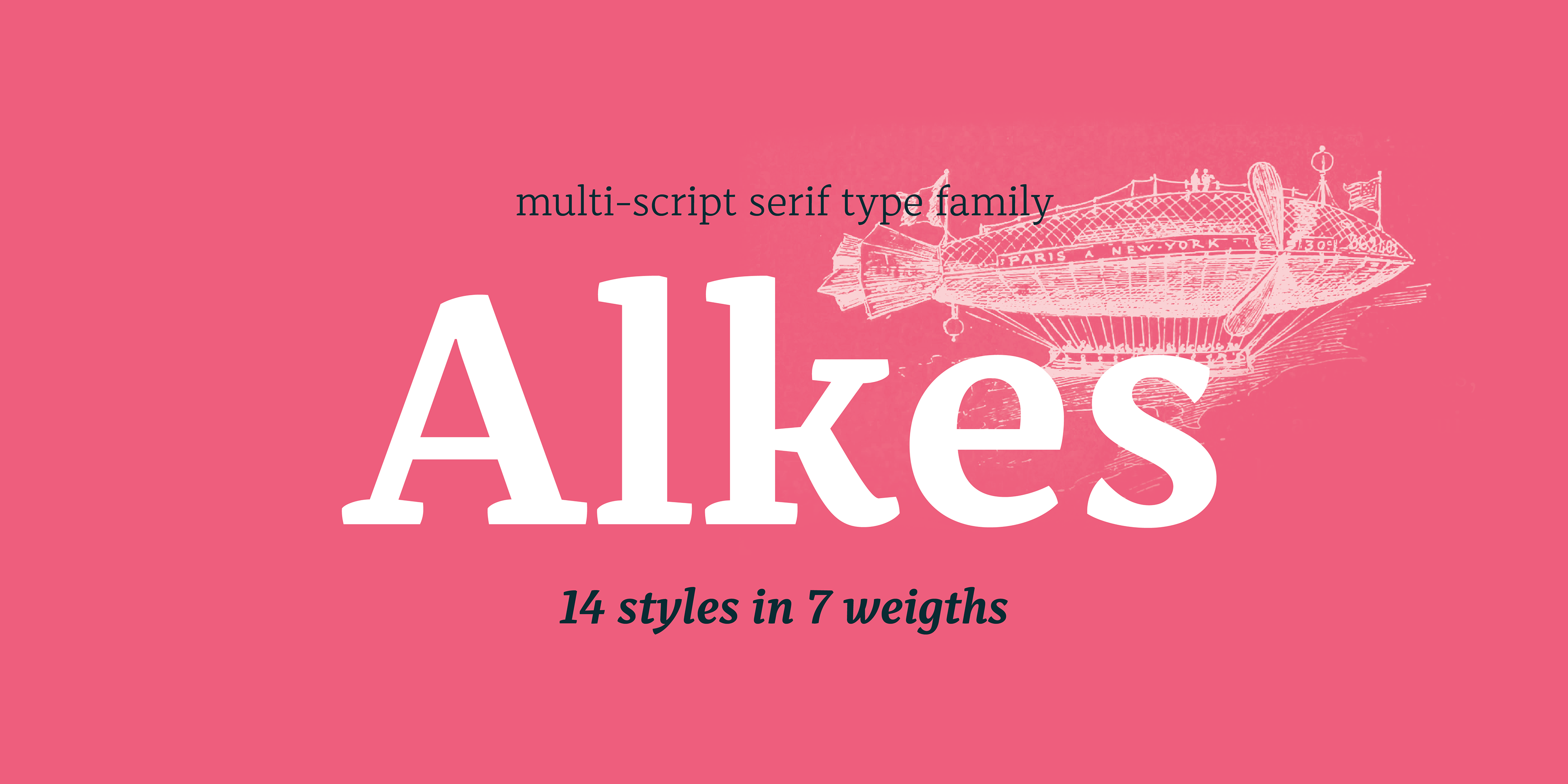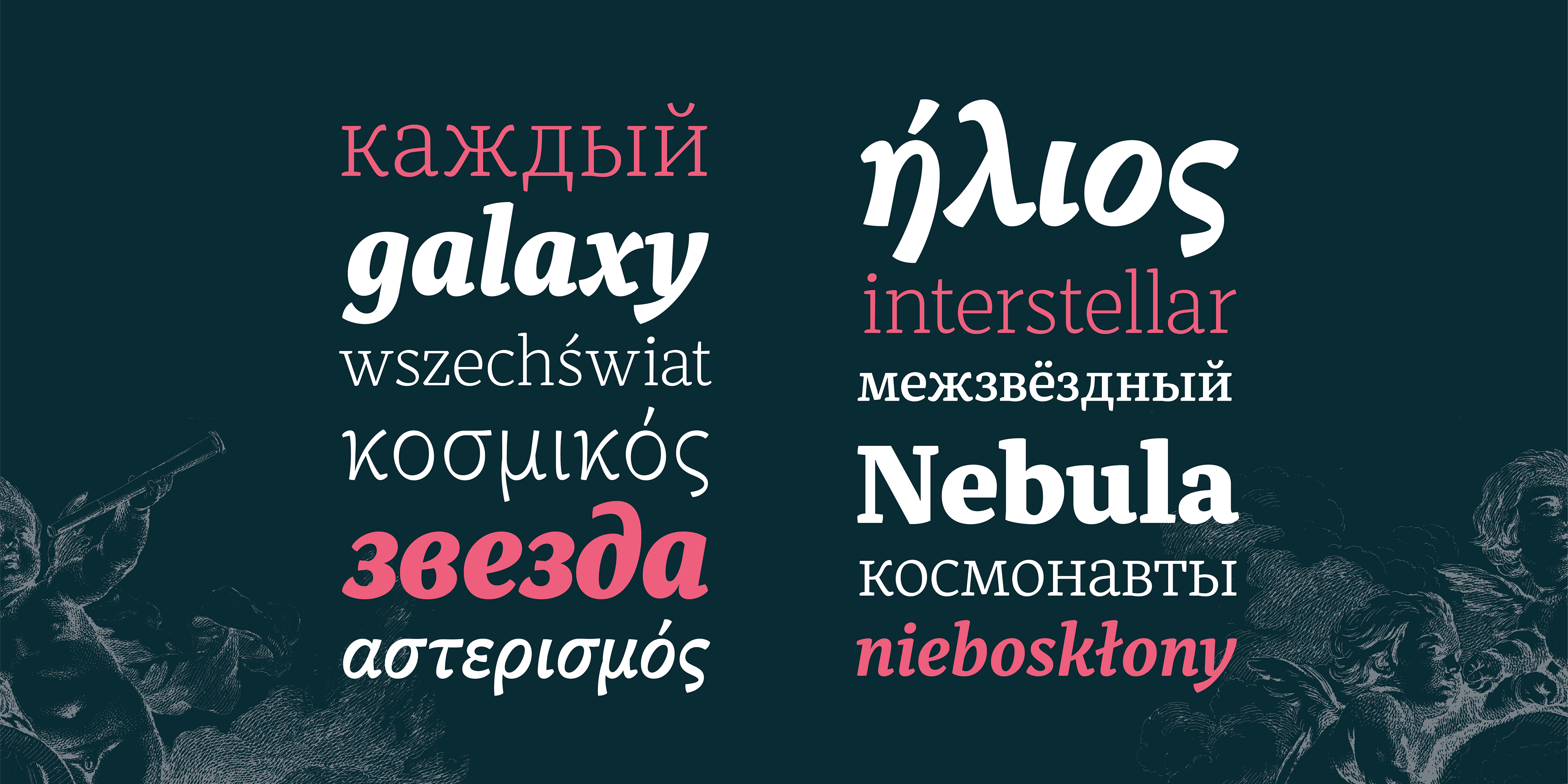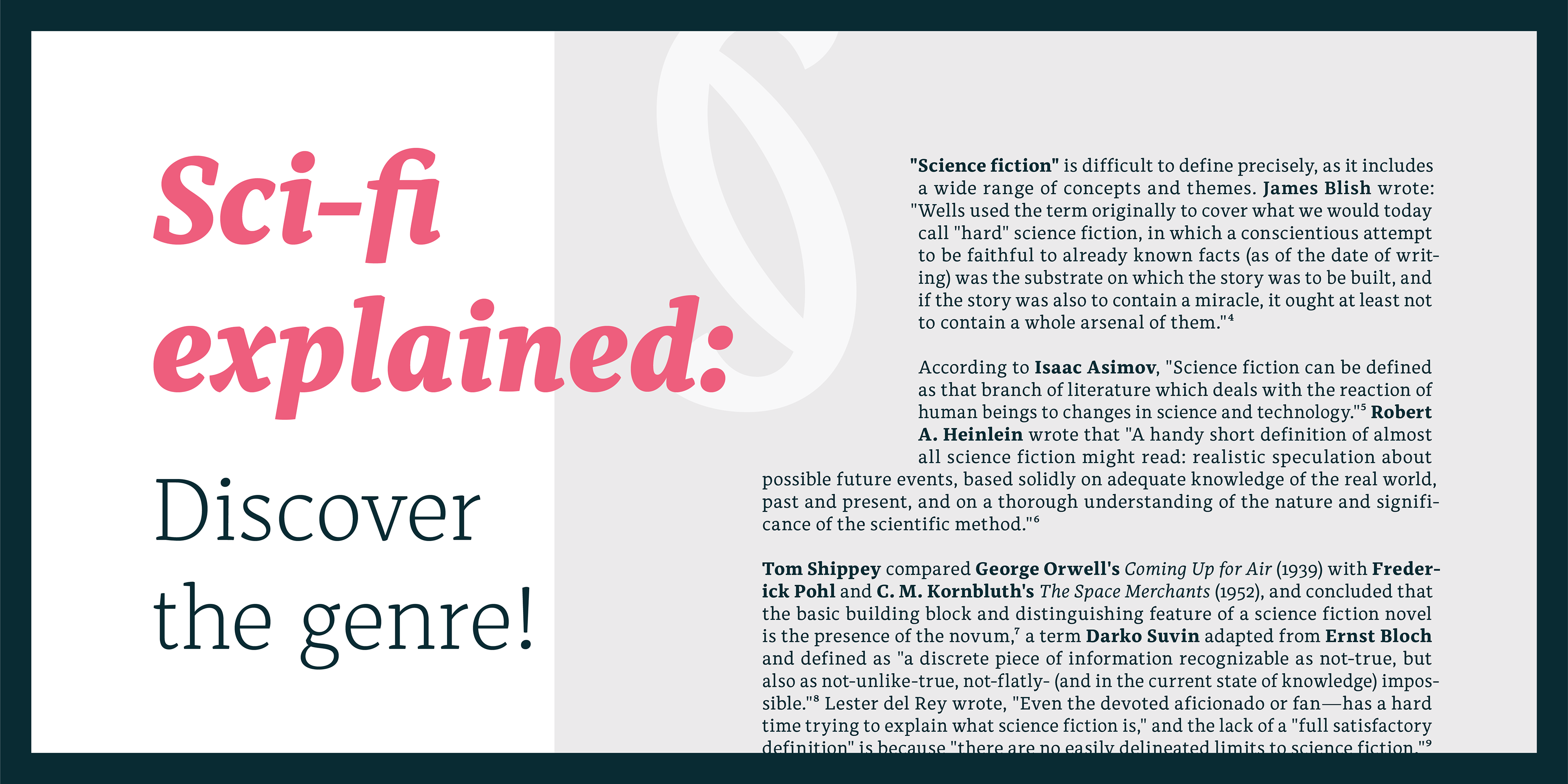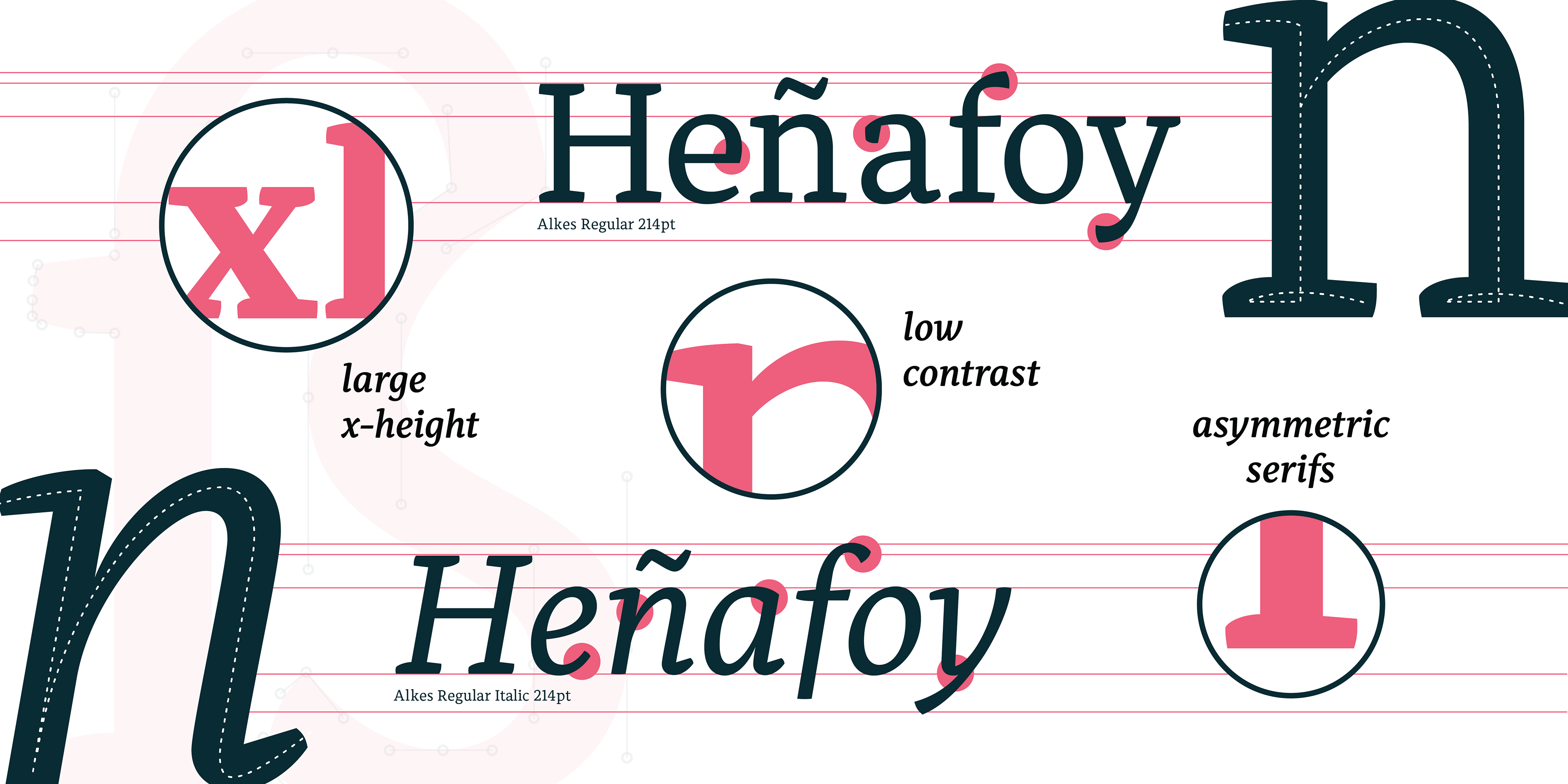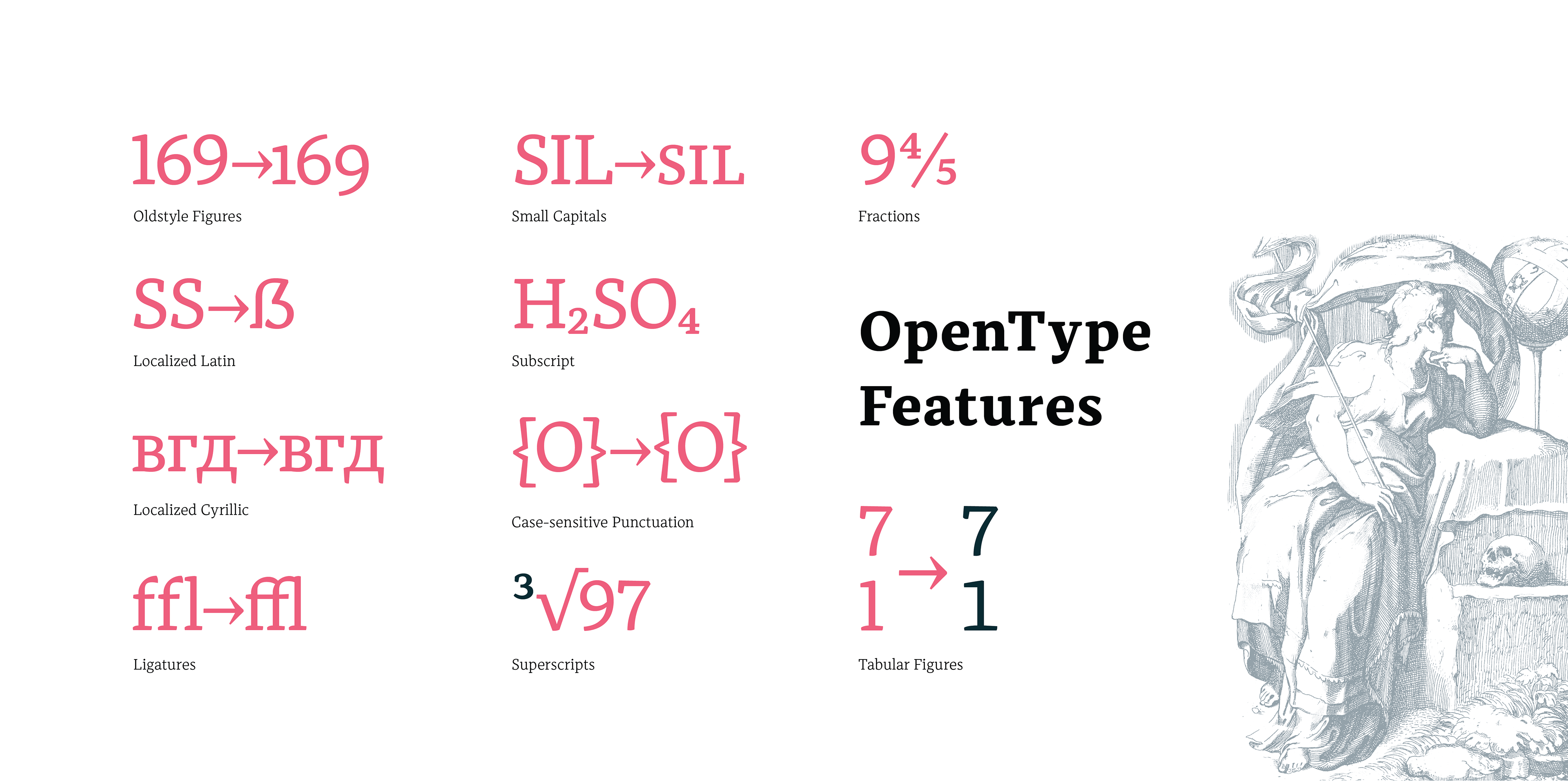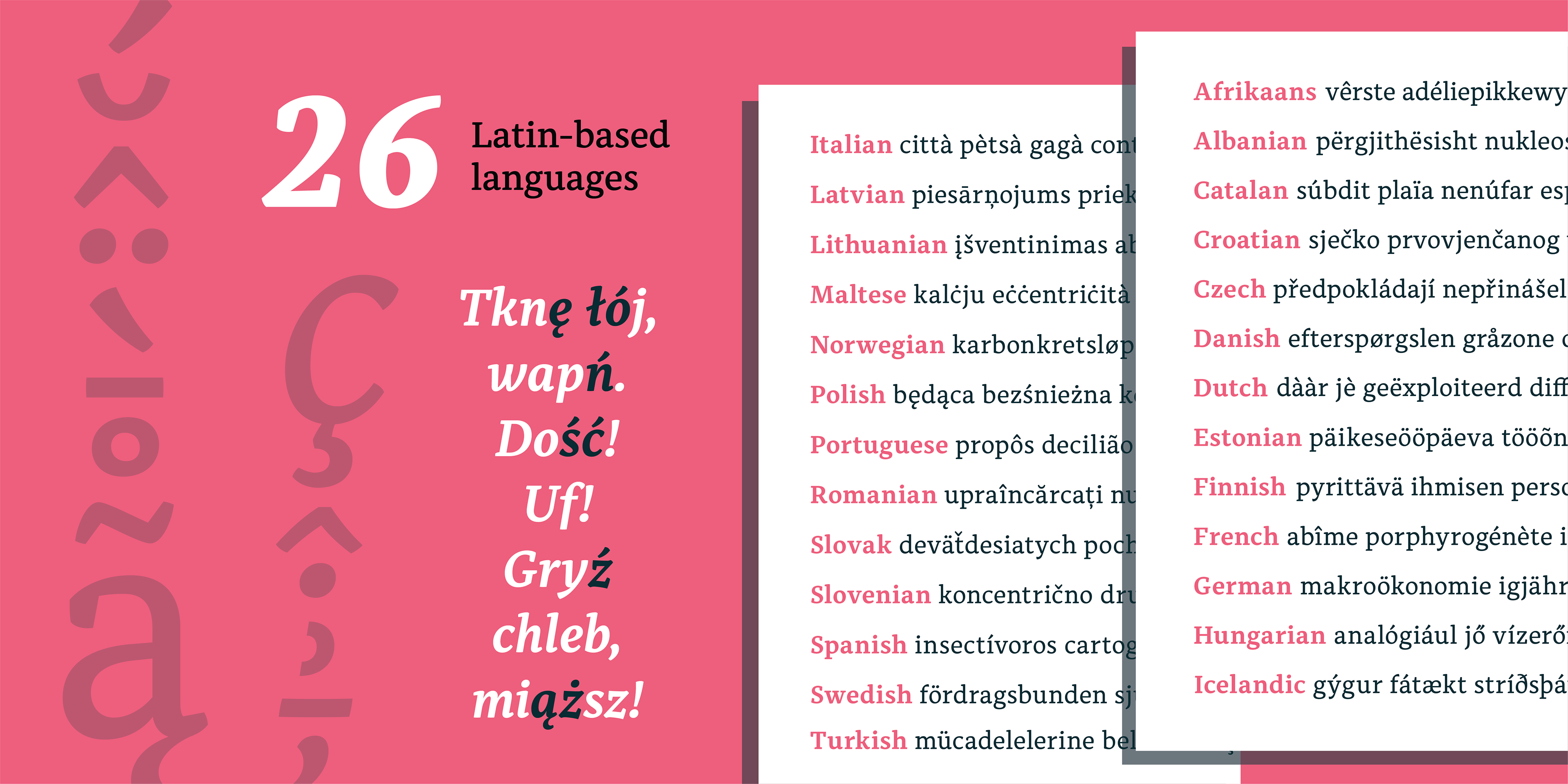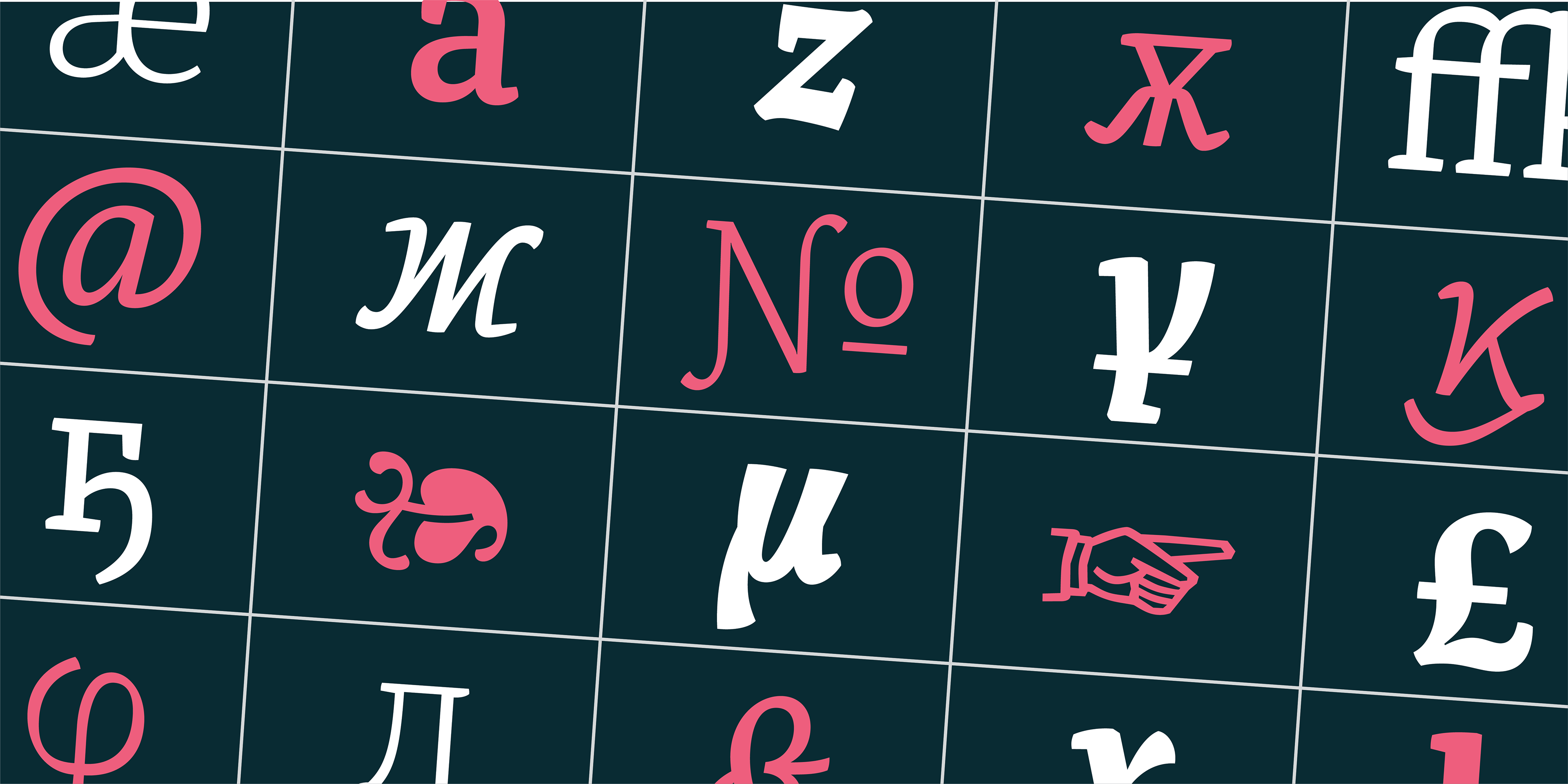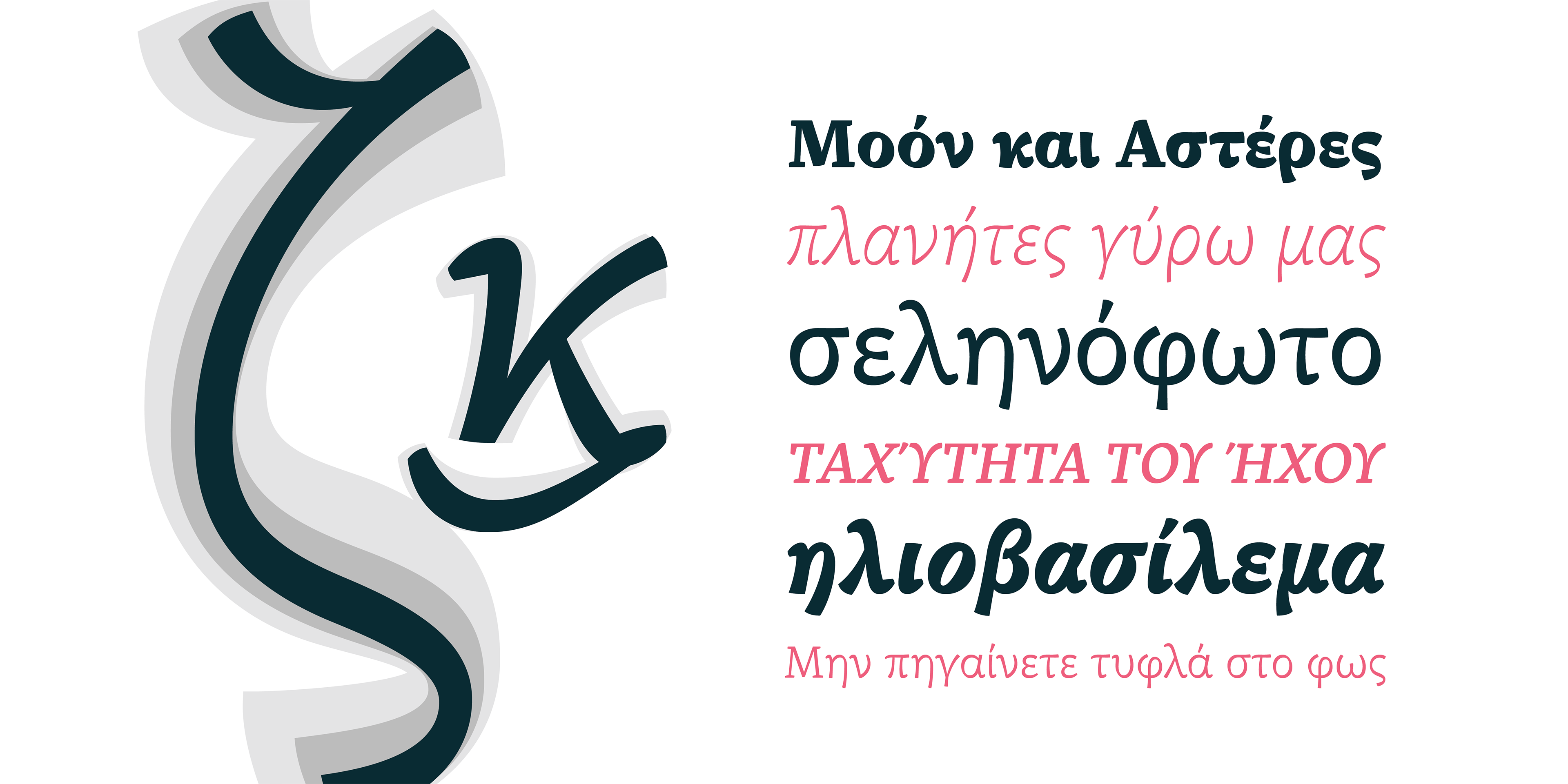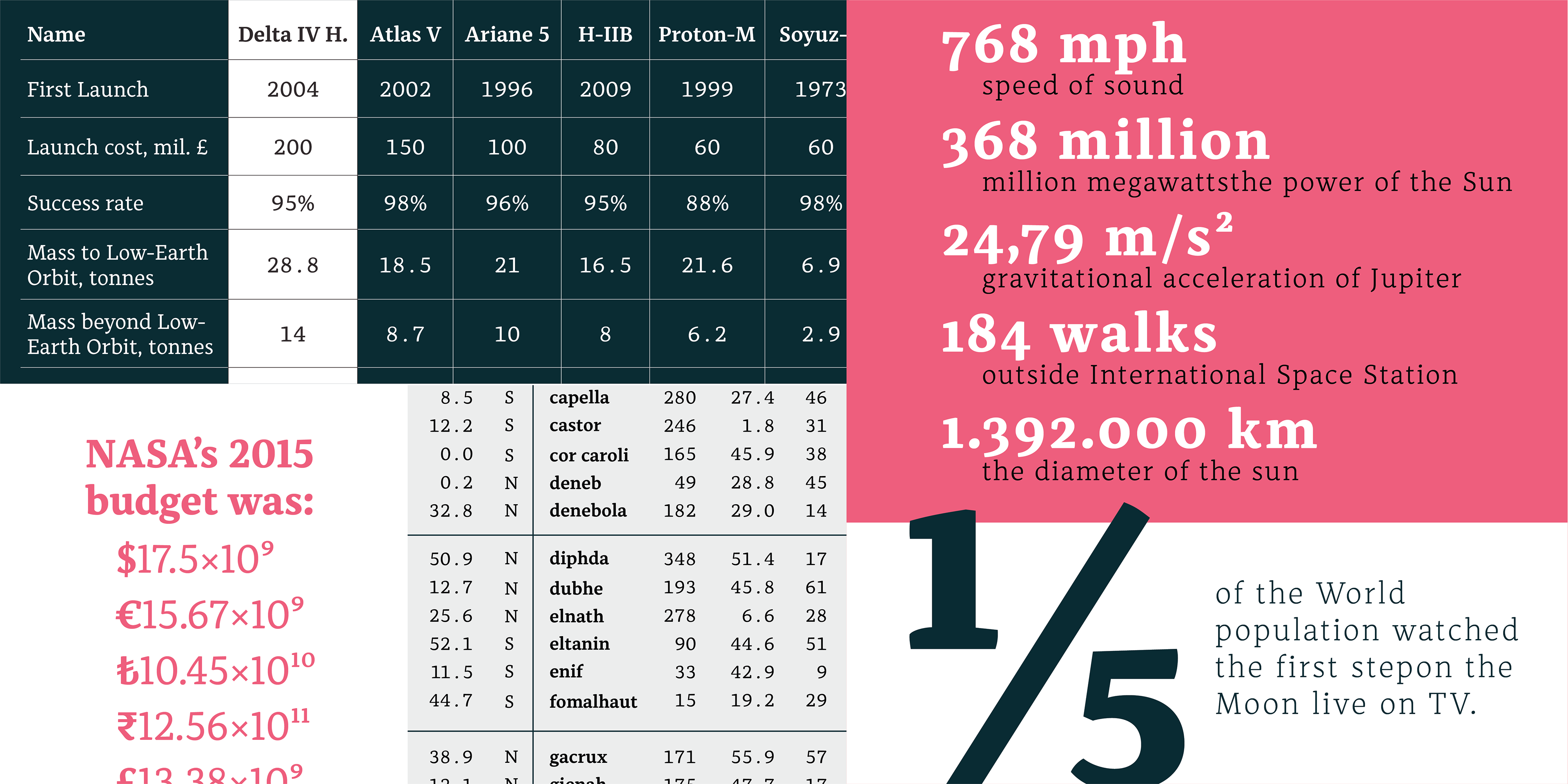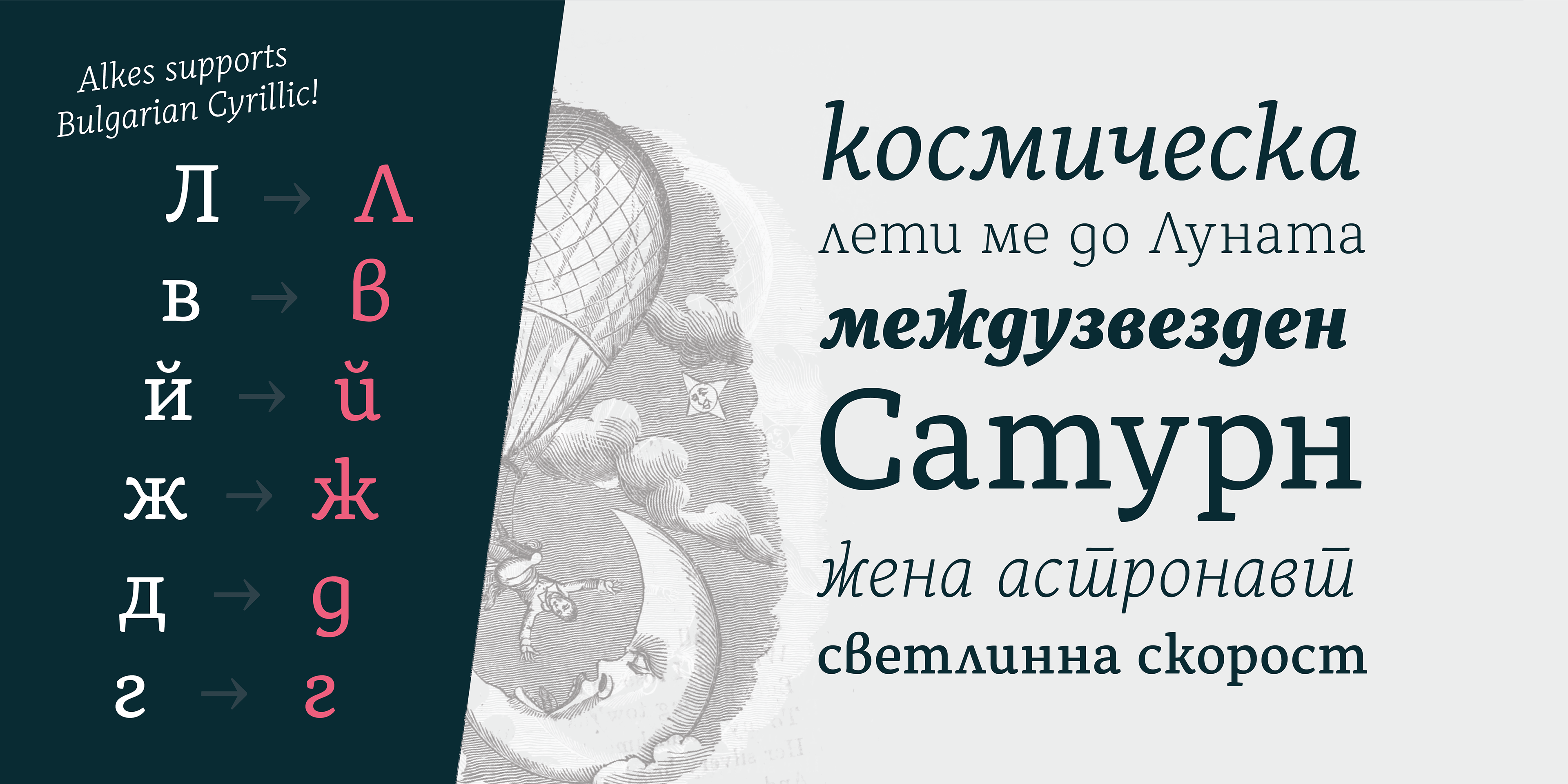
Alkes’ ideal environment is contemporary, multi-language websites which desire a clear structure, hierarchy and coherent non-Latin scripts. It features a generous x-height, a low contrast, wide letter spacing, large open counters, distinct letter shapes, simple forms, and consistent weight and thickness. Besides the Latin alphabet, Alkes includes two other scripts: Cyrillic and Greek.
The design of every non-Latin script begins with an in-depth research process: learning about history of each script from written manuscripts through to the digital era. This methodology helps me to understand each script's structure and its current shape. In every typeface I design I’m looking for balance and consistency in terms of its white space and shapes.